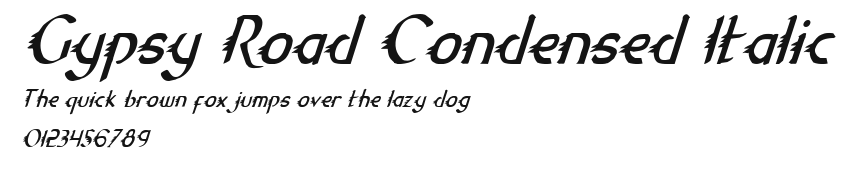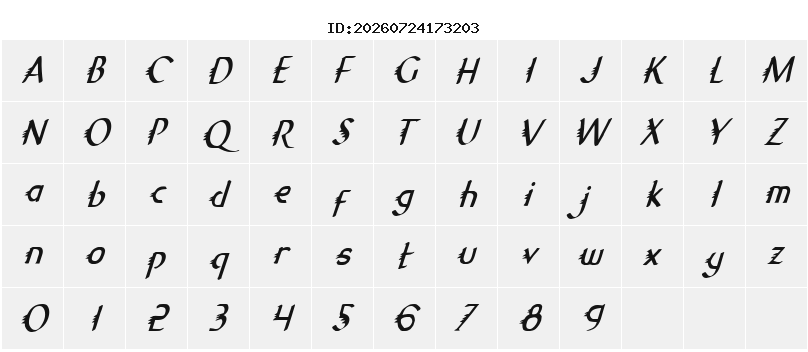
Gypsy Road Condensed Italic Preview
• Font Name: Gypsy Road Condensed Italic
• Font Style: Condensed Italic
• Full Font Name: Gypsy Road Condensed Italic
About Gypsy Road Condensed Italic.ttf
Gypsy Road Condensed Italic.ttf is a modern, elegant sans-serif font designed for ultimate readability and visual harmony. Perfect for branding, headlines, web design, and print materials.